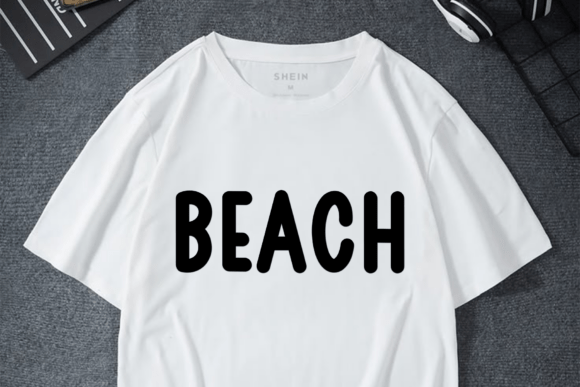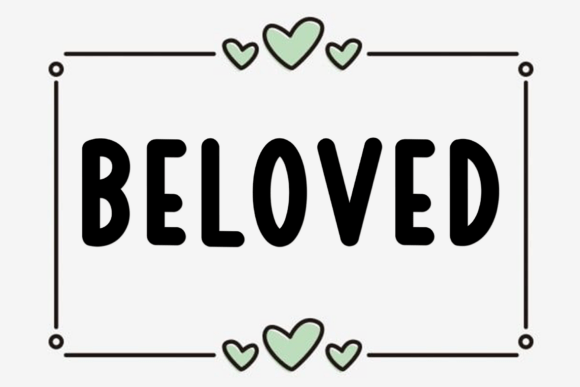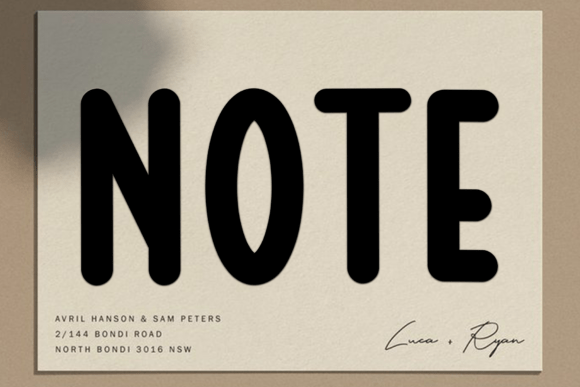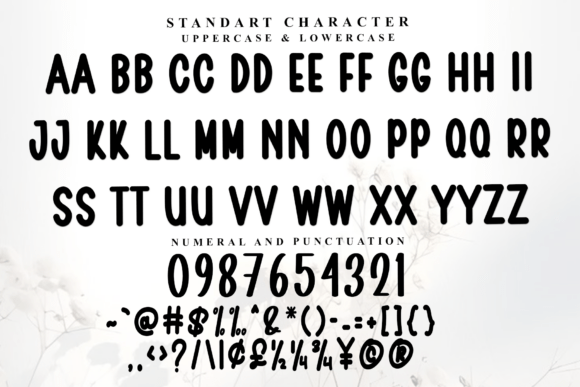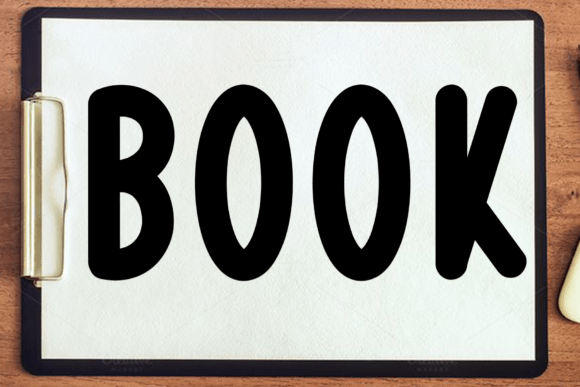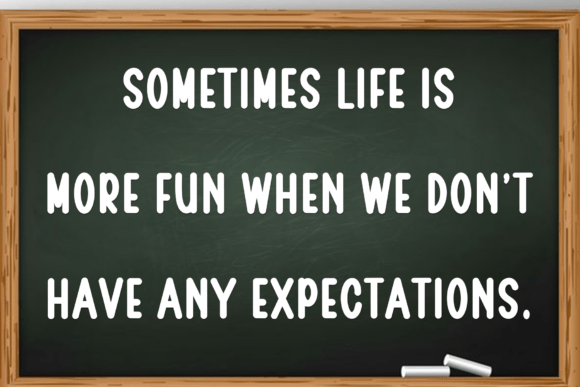
Fighter Font: Add a Touch of Holiday Magic to Your Designs
The holiday season is upon us, and what better way to get into the spirit than with a festive and merry typeface? Look no further than the Fighter Font, a decorative font that captures the essence of the holiday season with its whimsical flair and enchanting charm. In this article, we’ll dive into the world of Fighter Font and explore how it can elevate your designs, from greeting cards to holiday-themed projects.
The Perfect Font for Holiday Designs
Fighter Font is a beautifully crafted typeface that embodies the joy and magic of the holiday season. Its decorative elements and whimsical design make it perfect for adding a touch of festivity to your designs. Whether you’re a designer, crafter, or DIY enthusiast, this font is sure to bring a cheerful and nostalgic ambiance to your words.
Key Features of Fighter Font
- PUA Encoded: Fighter Font is PUA encoded, which means you can access all of the amazing glyphs and ligatures with ease. This makes it simple to use and incorporate into your designs.
- Decorative Elements: The font features decorative elements that add a touch of whimsy and festivity to your designs.
- Whimsical Flair: Fighter Font has a playful, whimsical flair that’s perfect for holiday-themed projects.
- Multilingual Support: The font supports multiple languages, making it a great choice for designers and crafters who work with international clients or want to create designs for a global audience.
Uses for Fighter Font
Fighter Font is a versatile typeface that can be used in a variety of ways, including:
- Greeting Cards: Add a touch of holiday magic to your greeting cards with Fighter Font.
- Gift Tags: Create beautiful, personalized gift tags with this festive font.
- Holiday-Themed Projects: Use Fighter Font to add a touch of whimsy and festivity to your holiday-themed projects, such as party invitations, decorations, and more.
- Social Media Graphics: Create eye-catching social media graphics with Fighter Font to get into the holiday spirit.
Tips for Using Fighter Font
Here are some tips for getting the most out of Fighter Font:
- Experiment with Sizes: Try using Fighter Font in different sizes to create visual interest and add emphasis to your designs.
- Mix and Match: Combine Fighter Font with other fonts to create a unique and eye-catching design.
- Play with Colors: Use Fighter Font with a variety of colors to add a pop of festivity to your designs.
Fighter Font is a beautiful, festive typeface that’s perfect for adding a touch of holiday magic to your designs. With its decorative elements, whimsical flair, and PUA encoding, it’s easy to use and incorporate into your projects. Whether you’re a designer, crafter, or DIY enthusiast, Fighter Font is sure to bring a cheerful and nostalgic ambiance to your words. So why wait? Get your hands on Fighter Font today and let your typography shine with the magic of the holiday season!